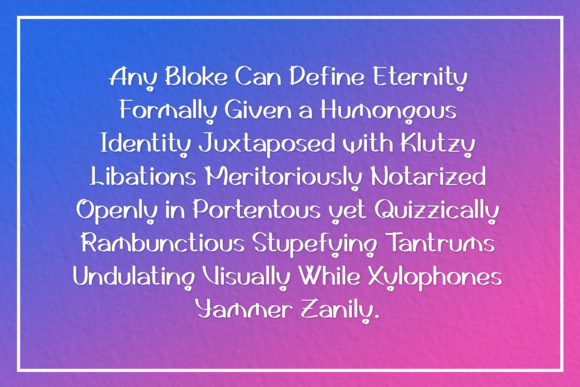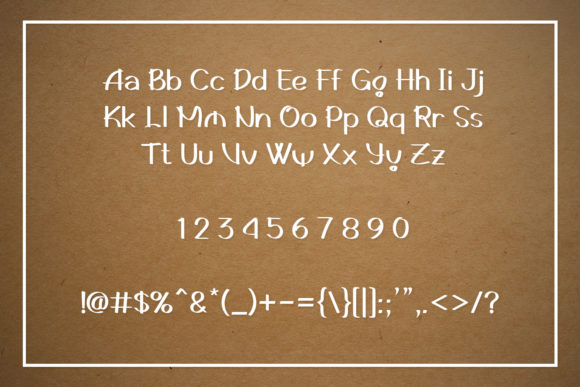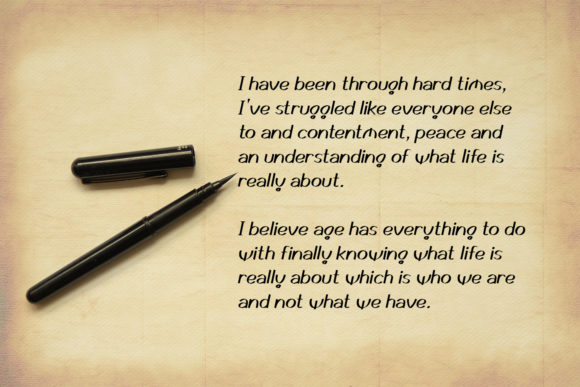
The Perfect Brushstroke: Introducing Gedrick Font
Do you ever find yourself scribbling down ideas in a notebook, only to realize that the scribbles turn out to be the most beautiful and creative part of your design? That’s exactly what happened to many designers when they first laid eyes on the Gedrick Font. This simple and friendly handwritten font has a natural, unique style that makes it incredibly fitting to a large pool of designs.
Gedrick Font is more than just a font – it’s a way to add a personal touch to your designs. Whether you’re creating a logo, a poster, or a social media graphic, Gedrick Font is the perfect addition to bring warmth and character to your work. For designers, having access to a versatile and high-quality font like Gedrick Font can be a game-changer.
Gedrick Font Key Features
- Font Family: Gedrick Font is a sans-serif font family, designed for use in digital and print media.
- Unique Characteristics: Gedrick Font features a unique blend of modern and minimalist design elements, with clean lines, rounded edges, and a subtle italic style.
Gedrick Font Review
First of all, let me say that Gedrick Font has some great qualities that make it a solid choice for designers.
- ✨ Versatility: Gedrick Font is available in several weights, from light to bold, which makes it suitable for a wide range of designs, from headings to body text.
- ✨ Friendly: The font has a friendly and approachable feel to it, making it perfect for designs that require a sense of approachability and warmth.
- ✨ Modern: Gedrick Font has a modern feel to it, making it suitable for contemporary designs that require a fresh and modern look.
However, there are also some limitations to consider.
- ⚠️ Limited language support: Gedrick Font may not be optimized for languages with non-Latin scripts, which could limit its use in certain projects.
- ⚠️ Limited font pairing options: While Gedrick Font is versatile, it may not pair well with other fonts, which could limit its use in certain design contexts.
Overall, I think Gedrick Font is a solid choice for designers who need a friendly and modern font for their projects. While it has some limitations, it’s a great option for a wide range of designs.
Tips for Getting the Most Out of Gedrick Font
1. Use Gedrick Font for titles and headings to create a bold and eye-catching effect.
2. Pair Gedrick Font with a sans-serif font for body text to create a clean and modern look.
3. Experiment with different font sizes and styles to add depth and visual interest to your design.
1. Wedding invitations and stationery
2. Branding and logo design
3. Magazine and newspaper headlines
4. Social media graphics and ads
Alternatives to Gedrick Font
Inter Font
The Inter Font is a modern sans-serif typeface designed by Rasmus Andersson. It is a clean and simple font that is highly legible and versatile. It is suitable for a wide range of applications, including digital products, branding, and publishing. Inter Font is a more minimalist and clean design compared to Gedrick Font, making it a great choice for designers who want a sleek and modern look.
The Montserrat Font is a sans-serif typeface inspired by the urban landscape of Buenos Aires. It is a geometric and modern font that is highly legible and versatile. It is suitable for a wide range of applications, including digital products, branding, and publishing. Montserrat Font is a more geometric and condensed design compared to Gedrick Font, making it a great choice for designers who want a bold and urban look.
Yes, the Gedrick Font is optimized for digital use and can be used for mobile apps, websites, and other digital products. However, please note that the font’s legibility may vary depending on the screen resolution and device.